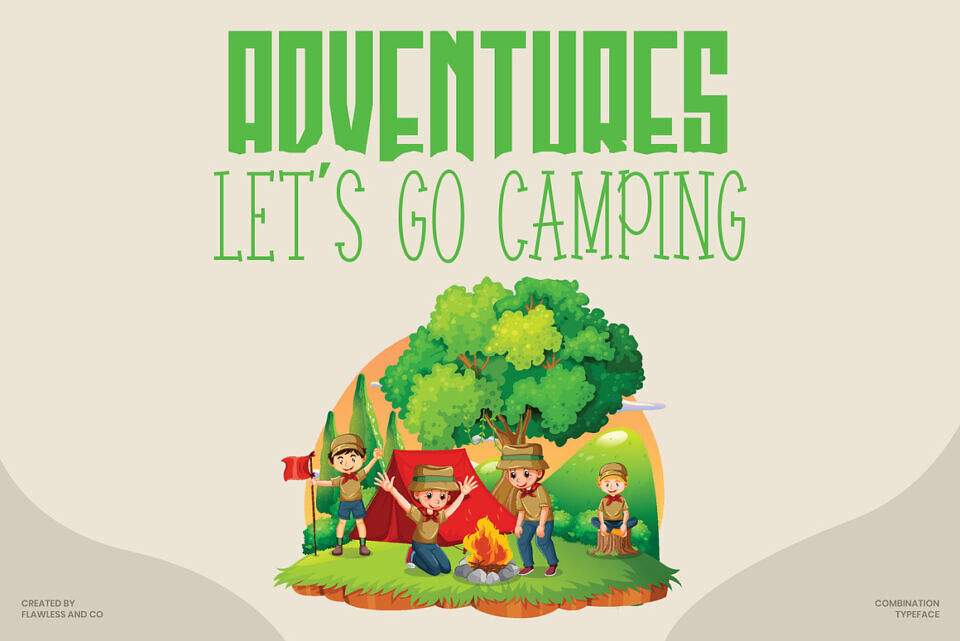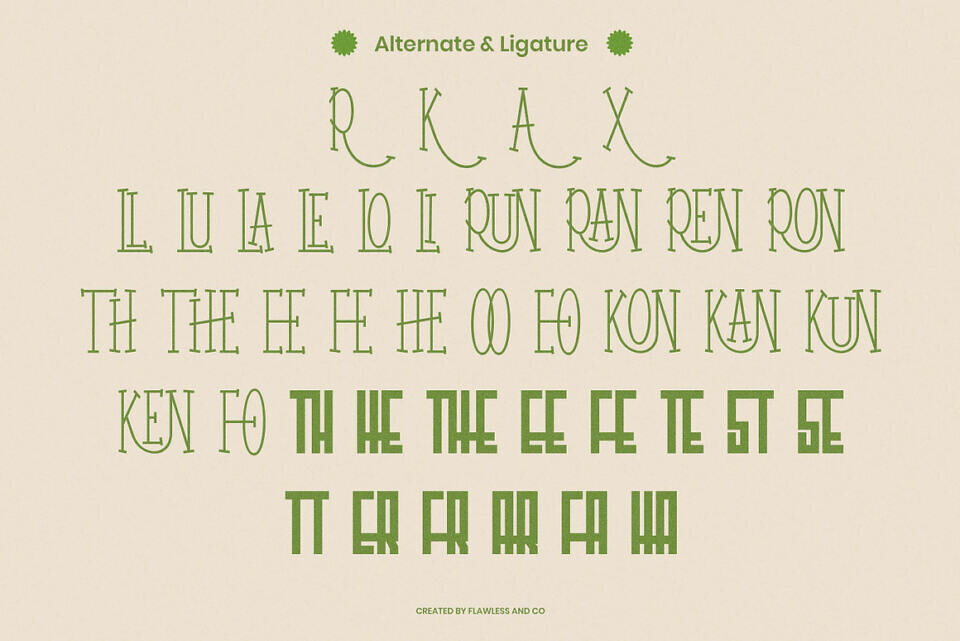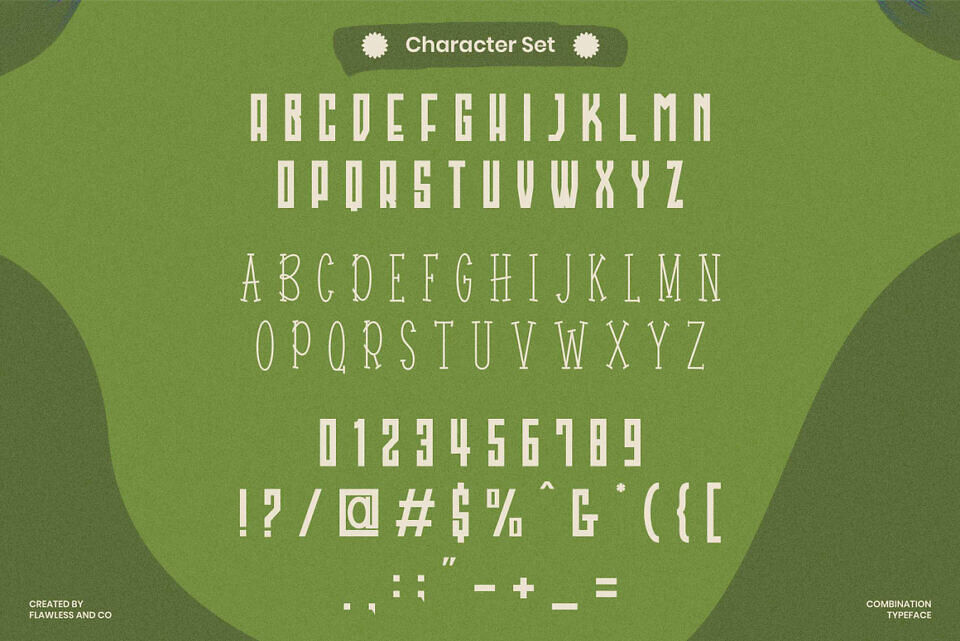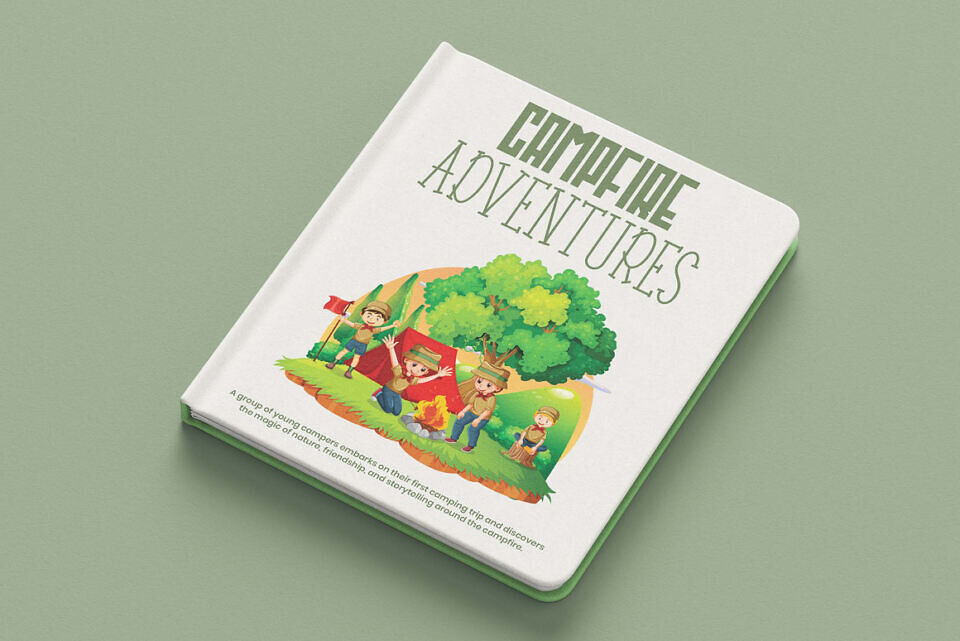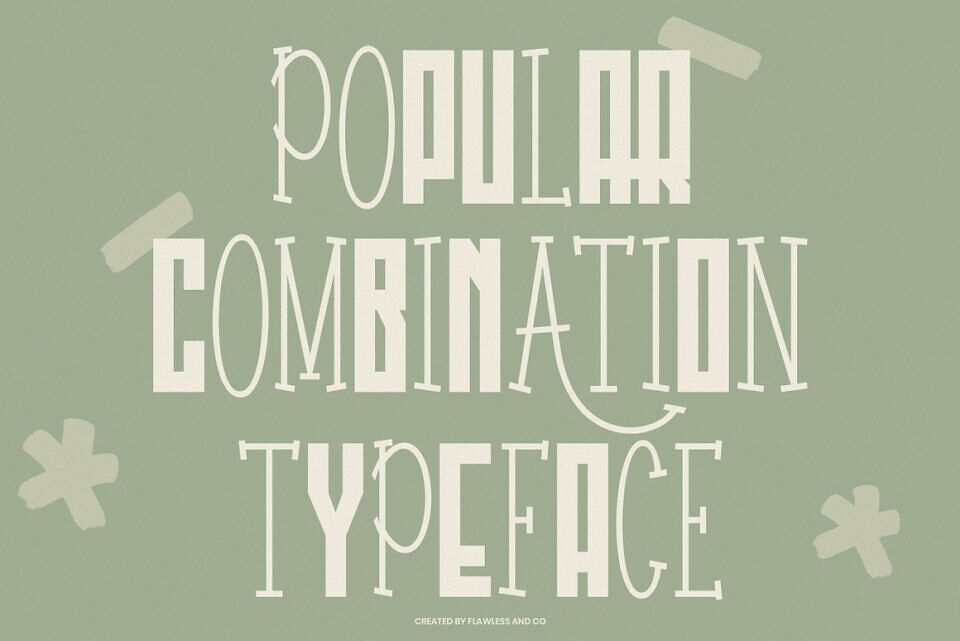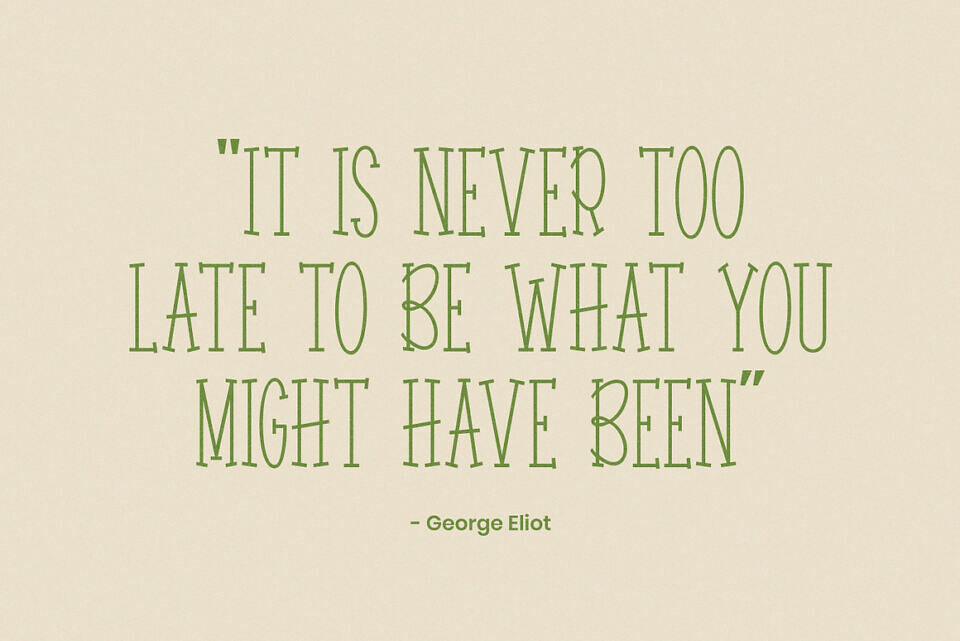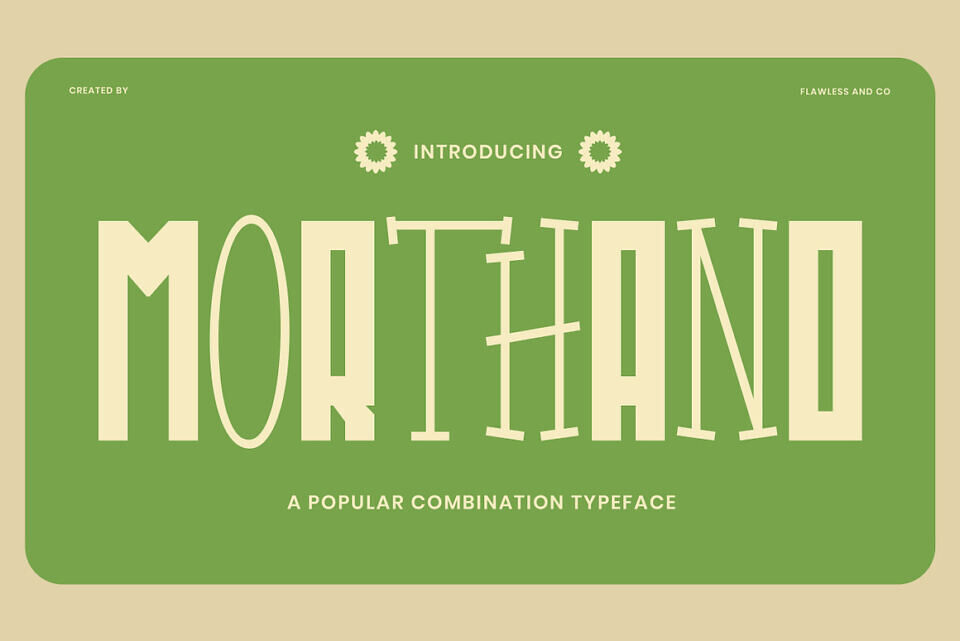
Morthano Font
Morthano is a playful combination font that brings together a lively spirit with modern versatility. Designed to capture attention with its bold forms and charming personality, Morthano blends fun, creativity, and style into one seamless design.
Perfect for branding, packaging, posters, social media graphics, children’s projects, and anything that calls for a friendly, upbeat tone, Morthano adds instant energy to any visual presentation. Its dynamic mix of styles creates a vibrant rhythm across layouts, making your designs feel fresh, engaging, and full of character.
Each letter is thoughtfully crafted to maintain readability while delivering a touch of whimsy, ensuring your message remains clear yet full of charm. Whether used for logos, headlines, or product designs, Morthano invites creativity and joyful expression into every project.